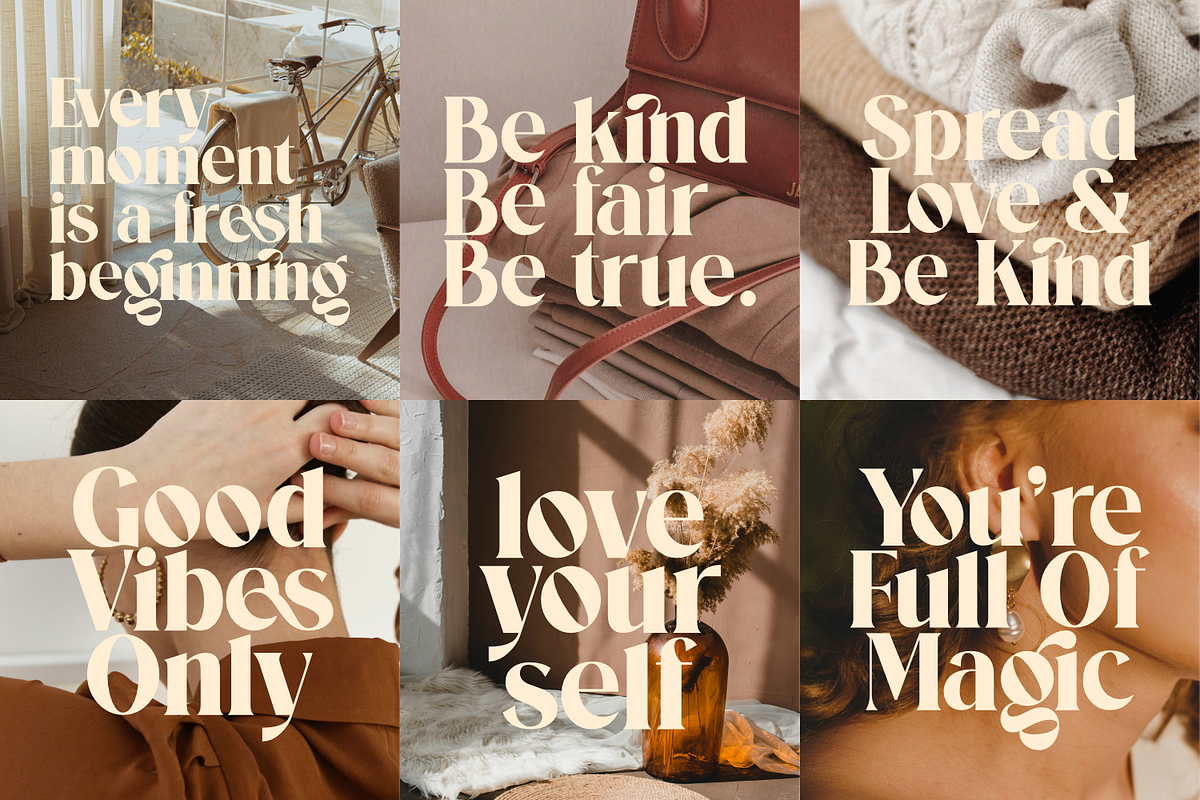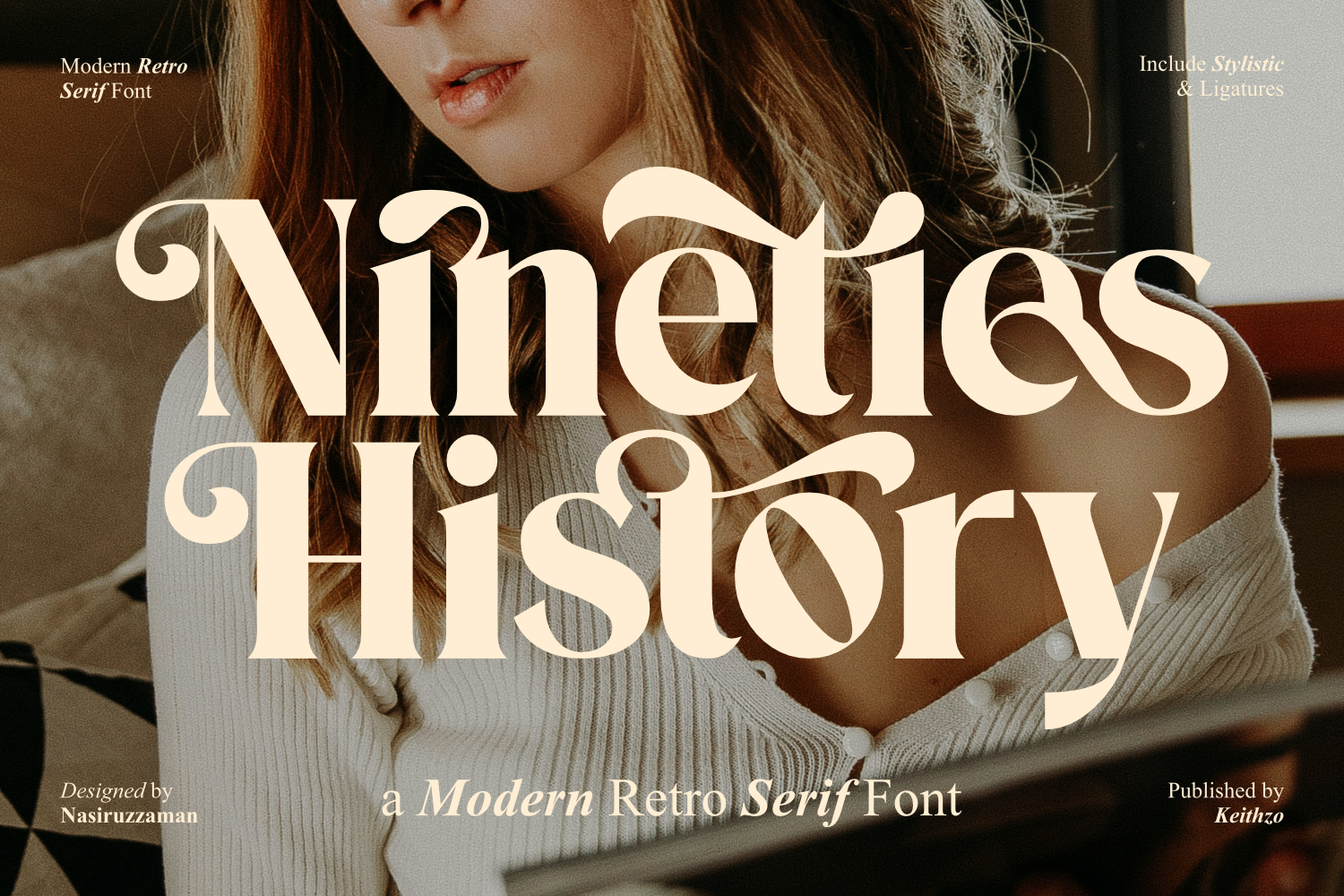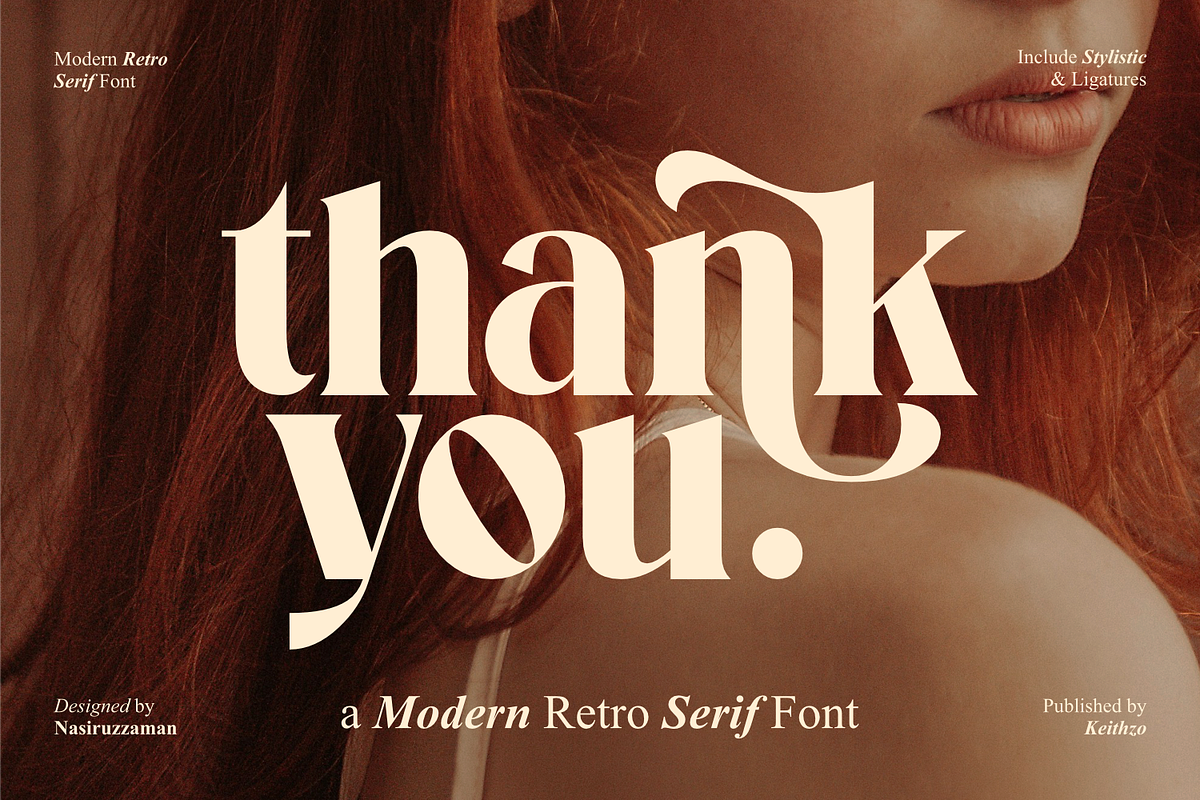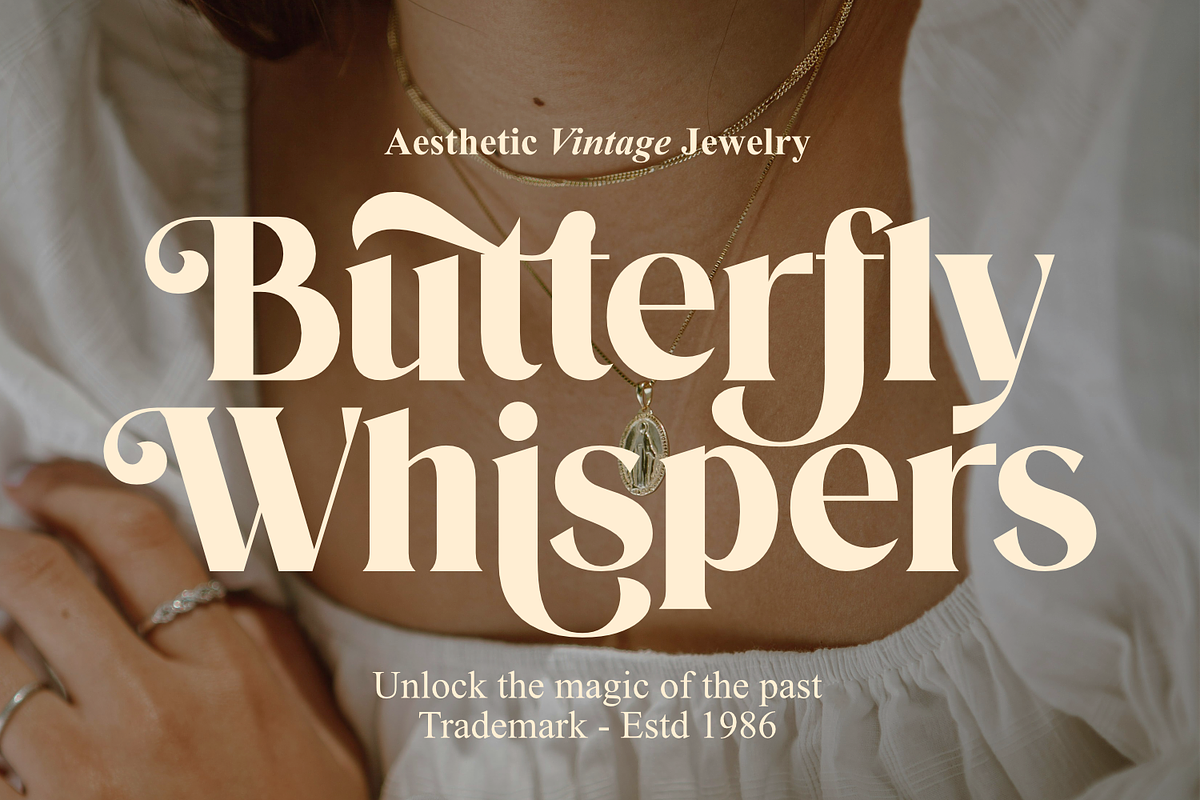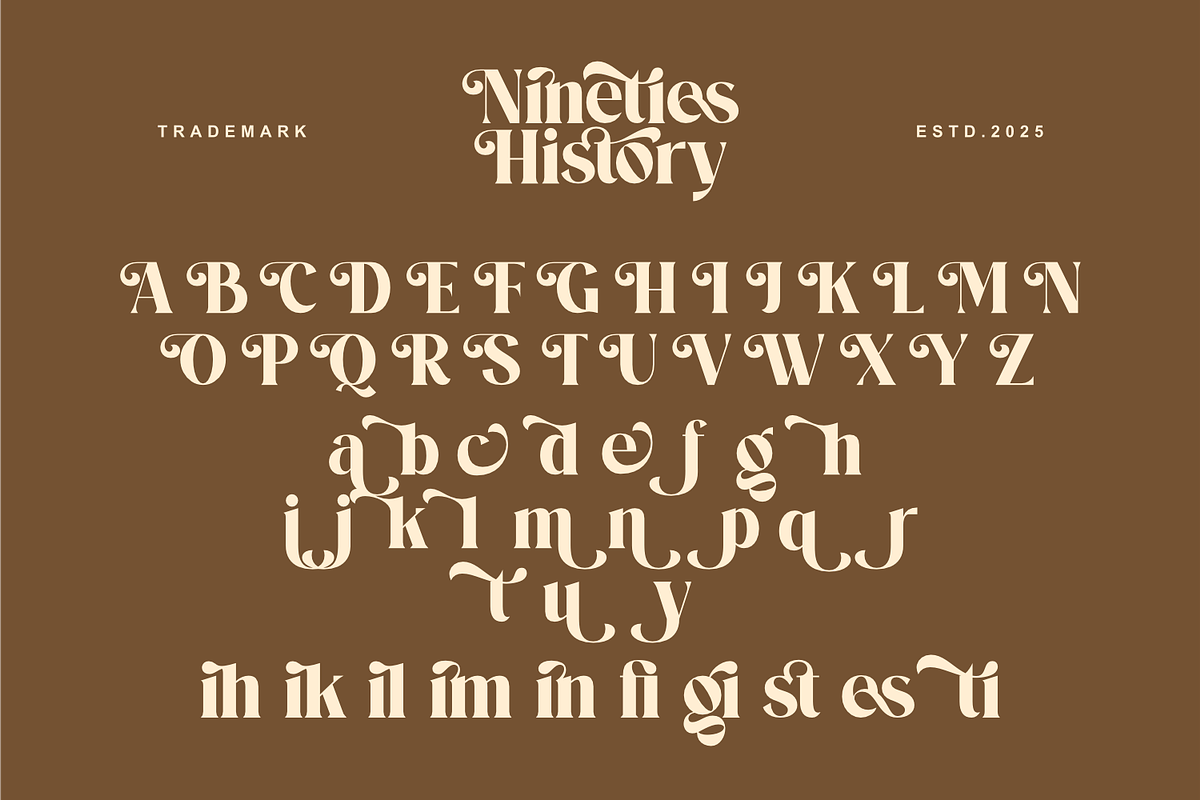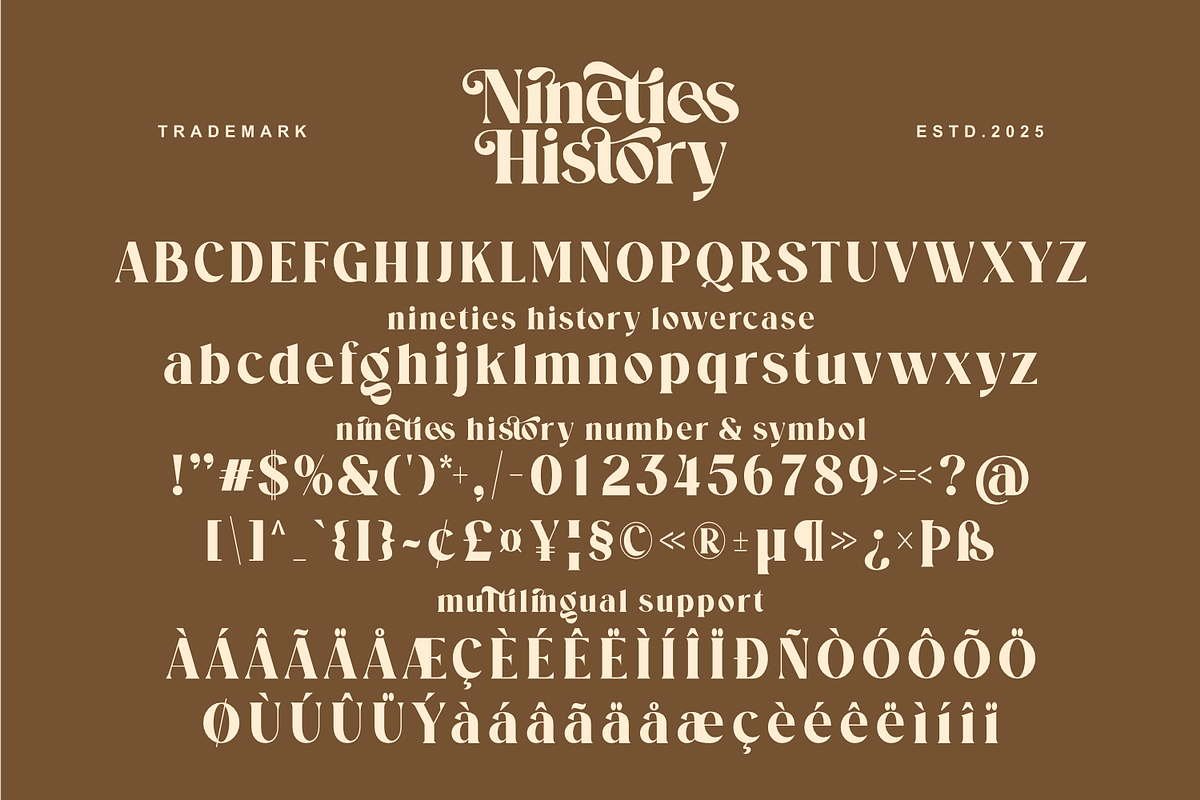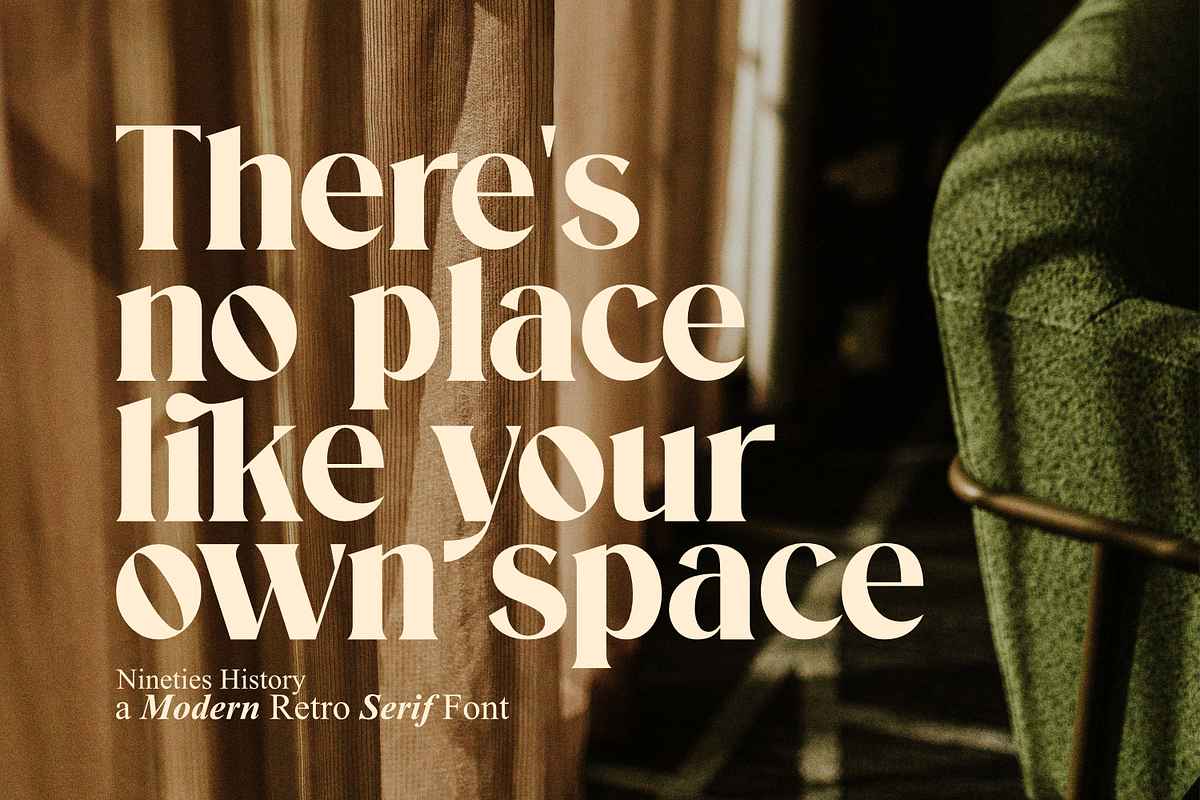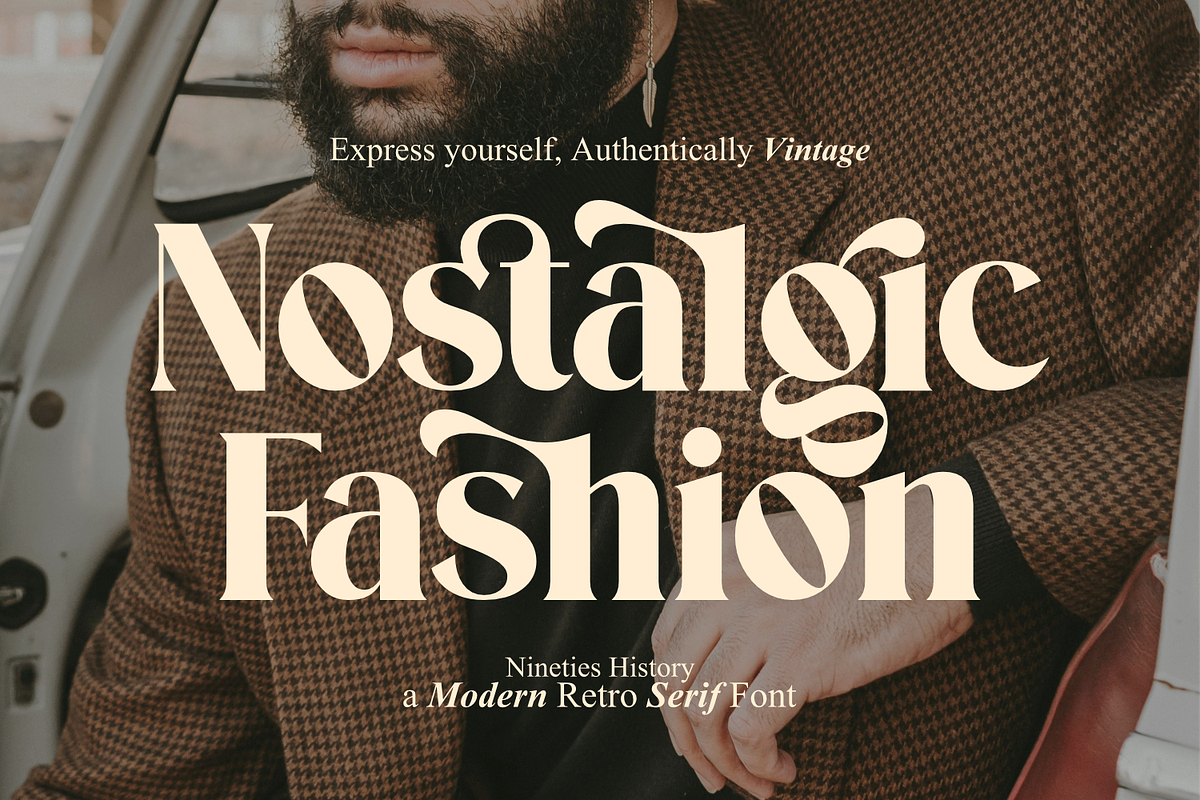
Nineties History - Retro Serif Font
Nineties History a Modern Retro Serif Font, Unveil Nineties History, the exquisite modern retro serif font that perfectly blends vintage charm with contemporary flair. Its sturdy, bold serifs and distinctive letterforms recall typography’s golden age, offering an undeniable sense of character. Elevate Your Designs with nineties history, Ideal for retro branding, vintage packaging, and designs seeking old-world charm. Perfect for headlines, logos, and editorial layouts, adding a distinctive voice. Complete Creative Freedom, PUA encoded for effortless access to all glyphs and swashes. Give your projects the enduring appeal and sophisticated character they deserve with Nineties History.